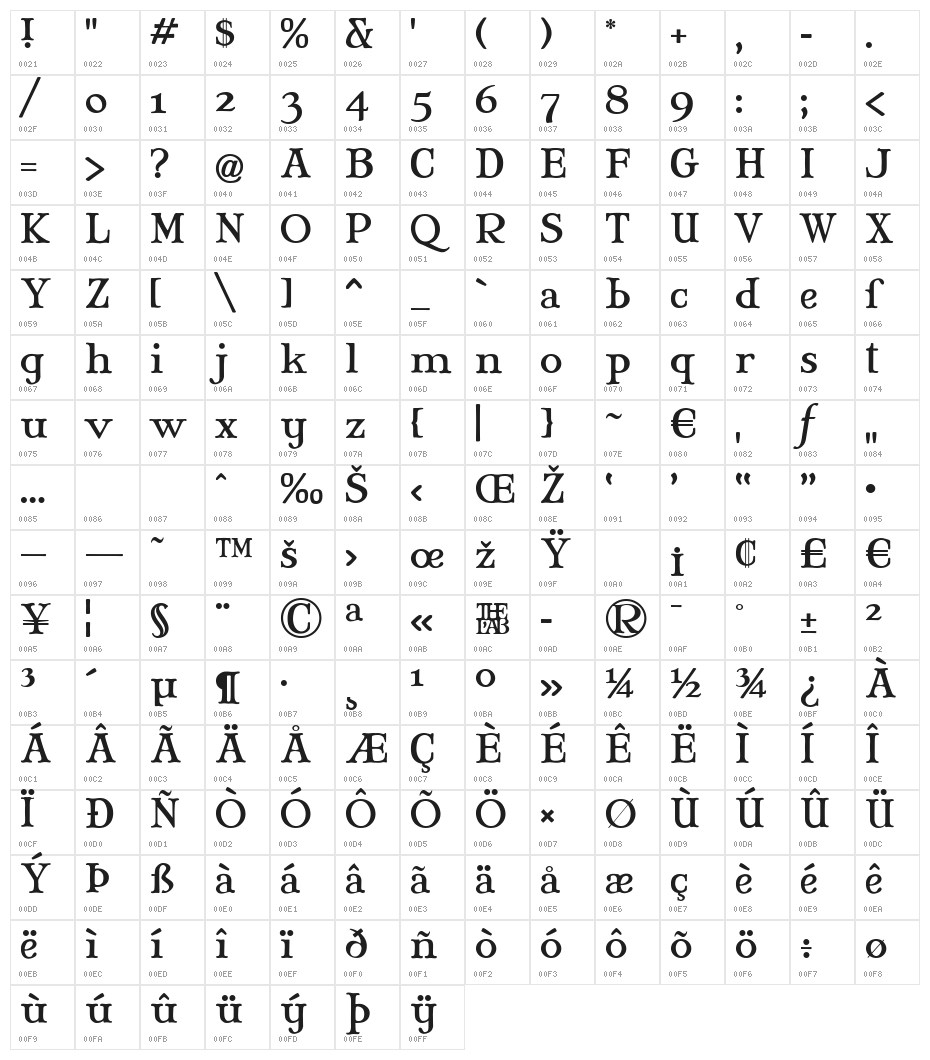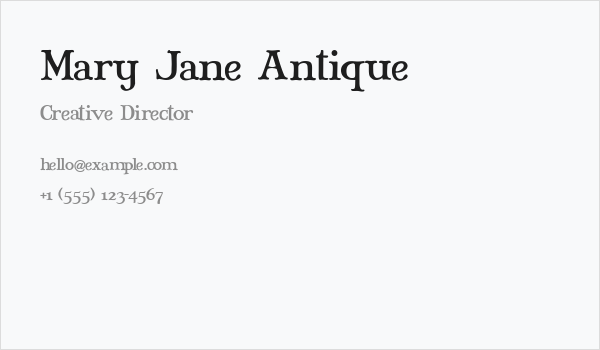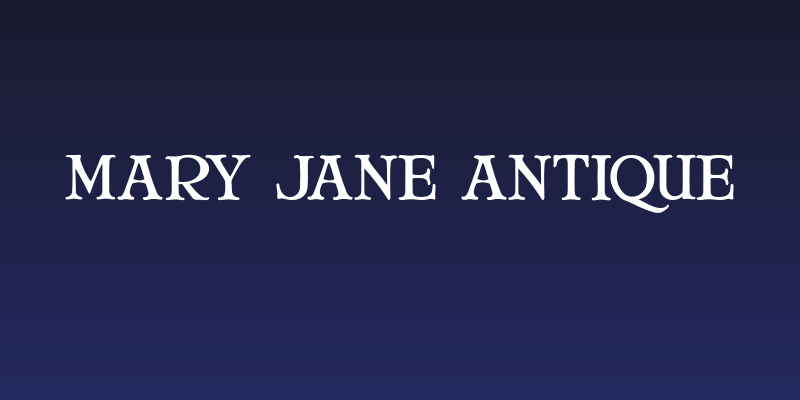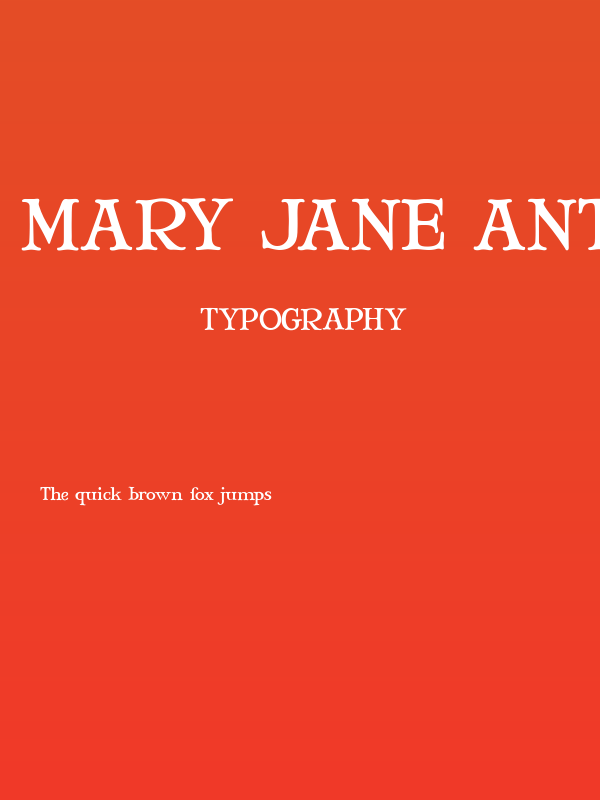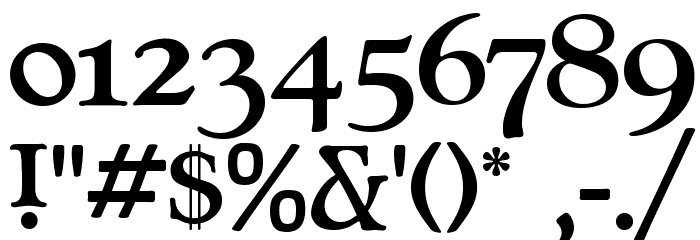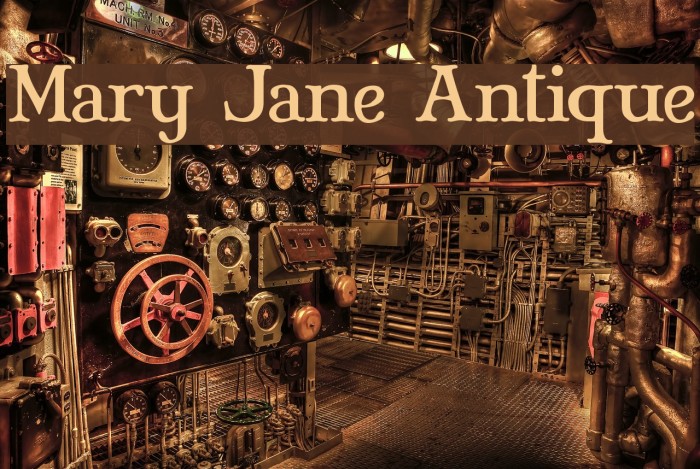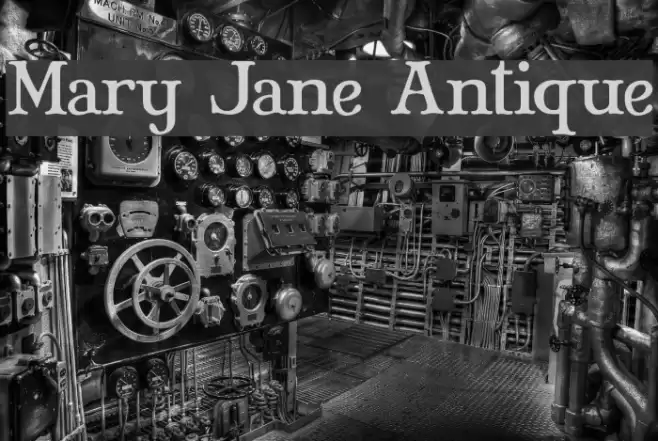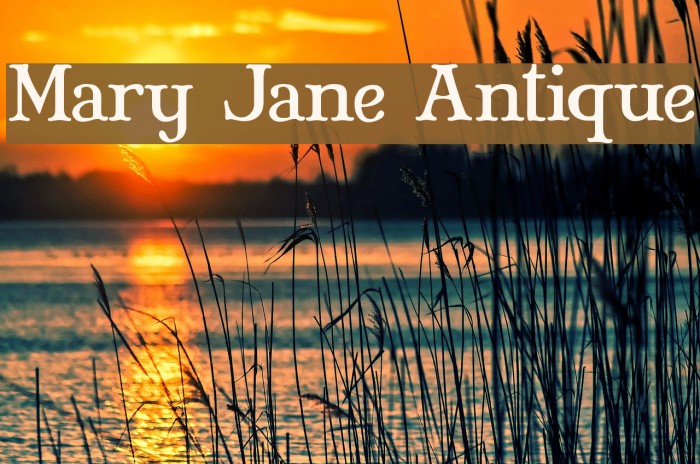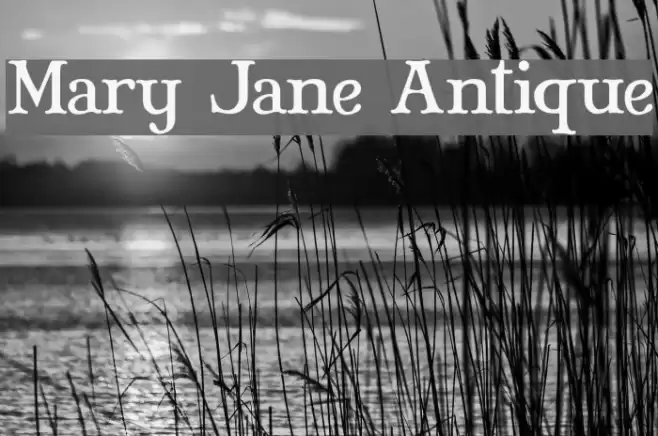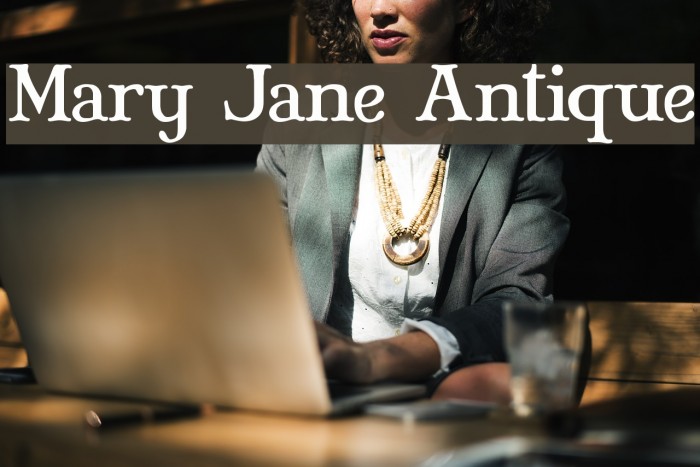
Mary Jane Antique Font
Mary Jane Antique Description
This font exudes a classic and elegant charm, characterized by its distinct serif style. The letters are crafted with a moderate contrast in stroke thickness, giving it a refined and sophisticated appearance. The serifs are pronounced yet not overly exaggerated, maintaining a balance between tradition and readability. The uppercase letters are bold and commanding, while the lowercase letters offer a softer, more approachable feel. The numerals are clear and consistent, complementing the overall aesthetic. Special characters are well-integrated, ensuring versatility in various design contexts. This font is ideal for projects that require a touch of timeless elegance and clarity.
| Overall Style | Classic |
| Use Case | Headlines, Body text, Logos |
| Proposed Projects | Ideal for book covers, formal invitations, branding, and editorial design. |